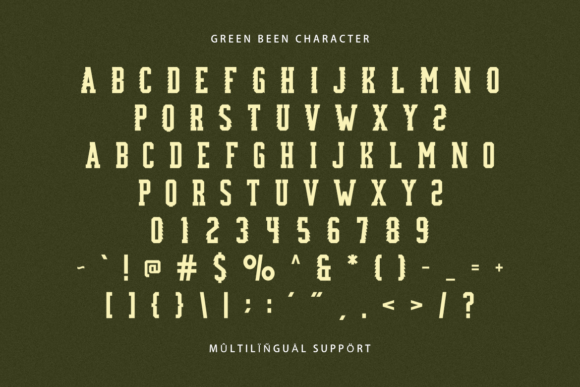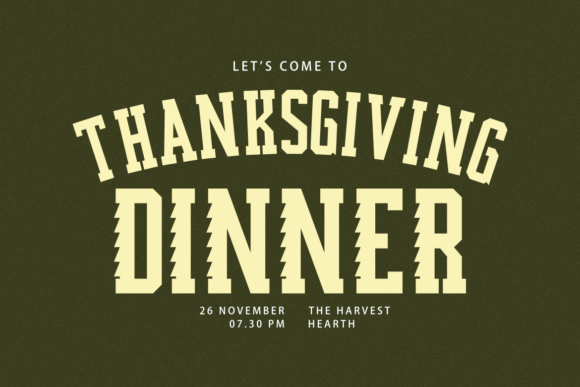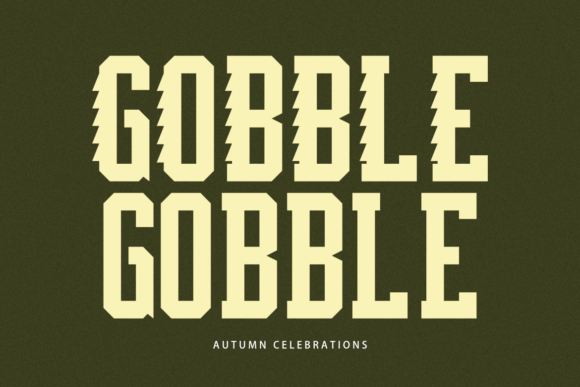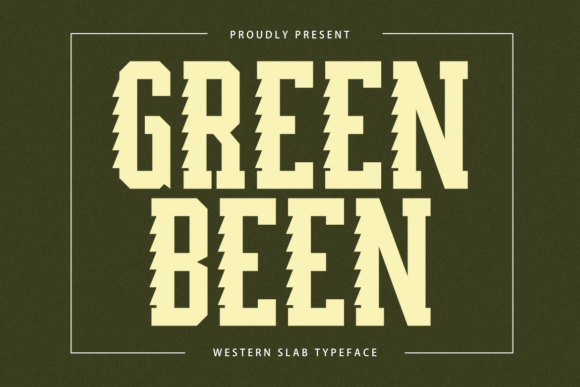
Introduction to Green Bean Font
Green Been is a uniquely powerful Western Slab Typeface designed to deliver high-impact visuals with a rustic, slightly distressed edge.
This display font captures the essence of classic athletic lettering and the rugged American aesthetic, while its sharp, textured inner cutouts give it a distinctive, handmade feel perfect for vintage projects Green Been is an excellent choice for Thanksgiving T-shirt designs, providing that cozy, rustic, and slightly worn look popular in holiday apparel and Print-on-Demand merchandise.